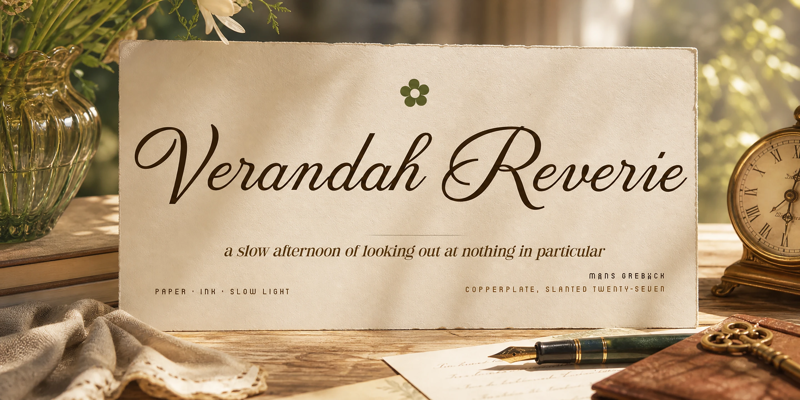
Verandah Reverie
Font familyVerandah Reverie
CreatorMåns Grebäck
NOTE: This font is for PERSONAL USE ONLY! To purchase a commercial license, visit: https://www.mansgreback.com/product/verandah-reverie Verandah Reverie is a flowing copperplate calligraphy script. The letterforms carry the unbroken cadence of a steel-nib hand — connected lowercase, fine entries, slightly extravagant capitals. The strokes vary in weight as a pen-on-paper hand would, with hairline upstrokes and confident shaded downstrokes. Set at large sizes it has the composed elegance of a hand-written invitation; set tighter it reads as careful correspondence rather than ornament. The script feels at home on a perfume label, a notary's letterhead, the inside cover of a book given as a saint's-day gift, or the printed program of a small chamber recital — anywhere the writing wants to suggest attention paid and time taken. For questions, please visit https://mansgreback.com/faq